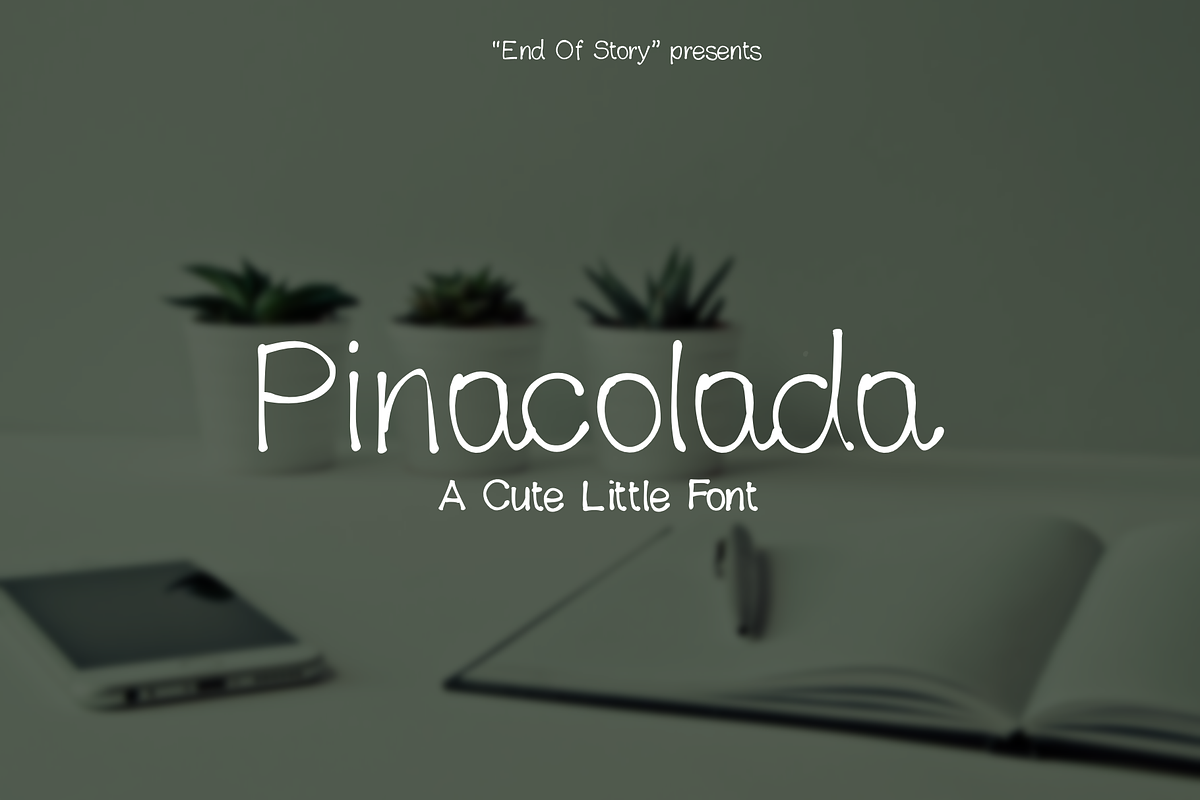
Pinacolada – Handwritten Font Free Download is a playful and breezy typeface that captures the essence of summer fun and creative flair. With its casual, handwritten style, Pinacolada is perfect for beach-themed projects, social media graphics, lifestyle blogs, DIY crafts, and product packaging that needs a relaxed and joyful vibe.
Full of character and warmth, Pinacolada – Handwritten Font Free Download brings a friendly, approachable look to any design. Its smooth curves and natural flow mimic real handwriting, making it great for adding a personal touch to quotes, cards, logos, and more.